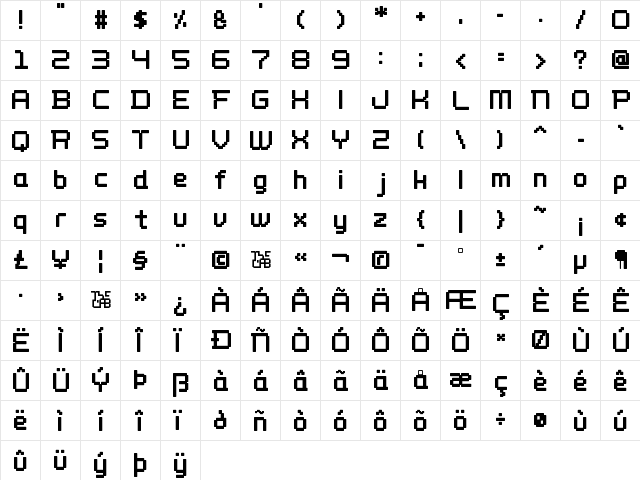
Wellbutrin Regular
Design Context for Wellbutrin Typeface
Wellbutrin offers clean, dependable letterforms without strong stylistic allegiance, making it a practical choice for designers who need flexibility.